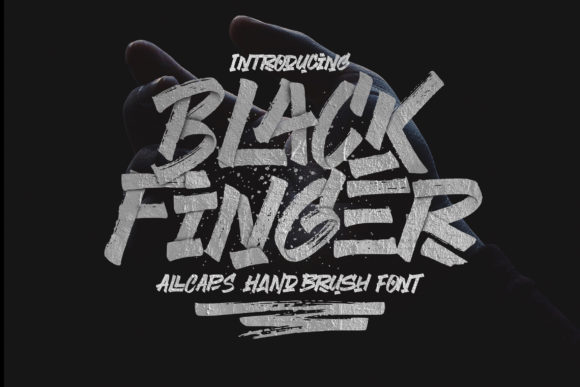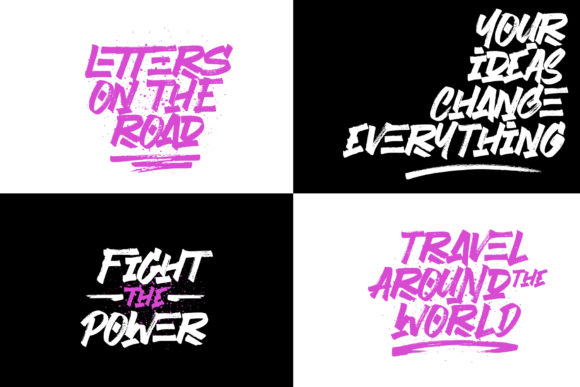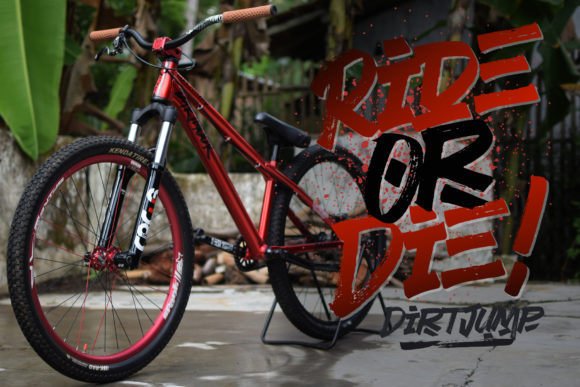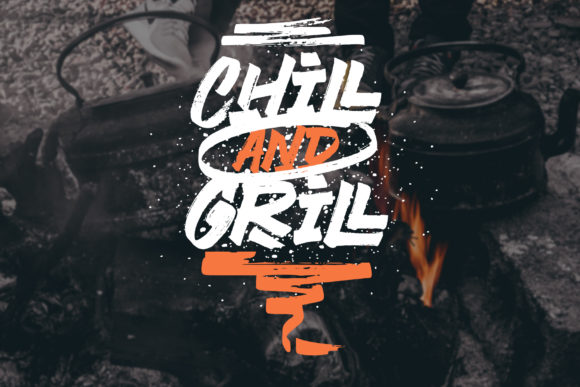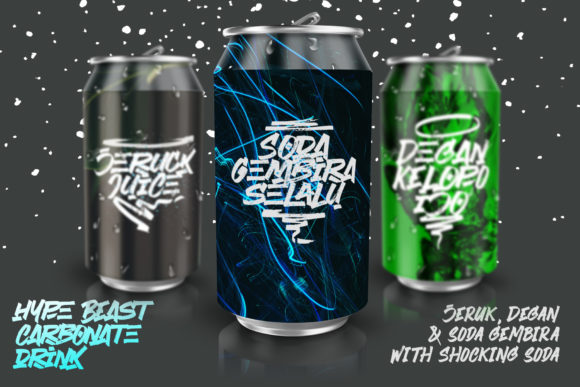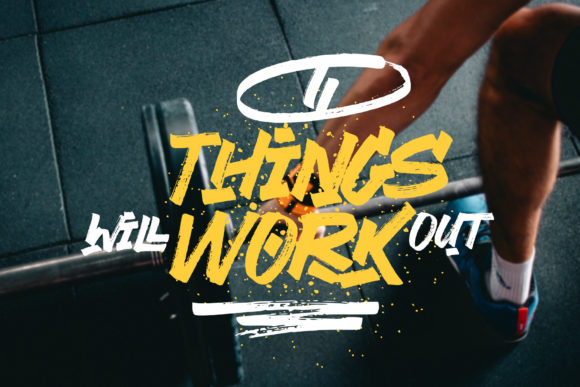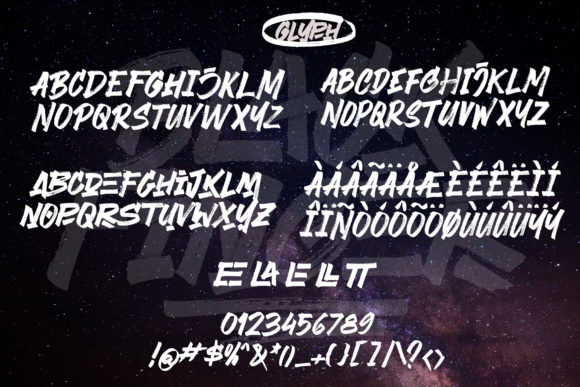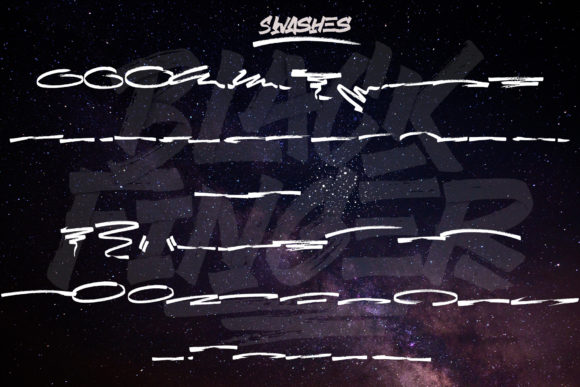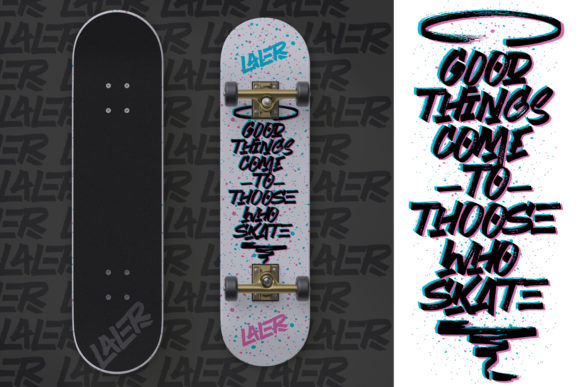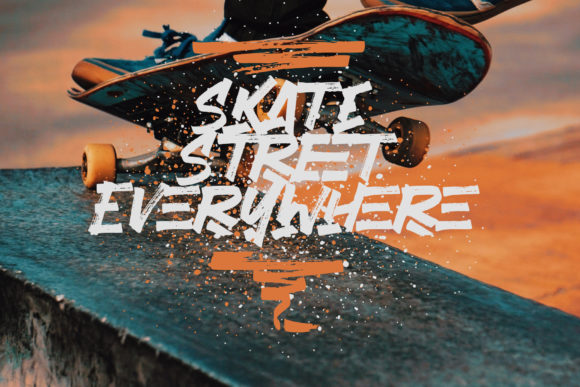
HomeScript FontsBlack Finger Font Script Fonts Black Finger Font FacebookXPinterestWhatsApp Black Finger Font Poster 2 Black Finger Font Poster 3 Black Finger Font Poster 4 Black Finger Font Poster 5 Black Finger Font Poster 6 Black Finger Font Poster 7 Black Finger Font Poster 8 Black Finger Font Poster 9 Black Finger Font Poster 10 Black Finger Font Poster 11 Black Finger Font Poster 12 Black Finger Font Poster 13 Black Finger Font Poster 14 About Black Finger Font Black Finger is an all-caps handwritten font with an organic feel. Get inspired by this one-of-a-kind font! DOWNLOAD NOW People also explored Gadigoke Haola Font Fabulous Script Font Allura Script Font Cotrila Font Sun Flower Font YWFT Belle The Winter Font New Biscuits Font Carson Monogram 339 0 TagsBlack Finger Font Previous articleZafira FontNext articleGruffly Font LEAVE A REPLY Cancel reply Comment: Please enter your comment! Name:* Please enter your name here Email:* You have entered an incorrect email address! Please enter your email address here Website: Save my name, email, and website in this browser for the next time I comment. Personal Use Free Nugo Sans Personal Use Free Read more about this font BD Lofi Personal Use Free Read more about this font Alphakind Personal Use Free Read more about this font Fake Receipt Personal Use Free Read more about this font BLOG How to Cut Any Font on Cricut: Convert a Font to SVG (Free) Turn any font into a clean SVG so it cuts crisp on Cricut - a quick 3-step workflow using a free font-to-SVG tool. Where to Buy American Fonts Online in 2024 Top 10 Handwritten Fonts That Elevate Your Designs Free vs Paid Fonts: Why Investing in Premium Fonts Is Worth It